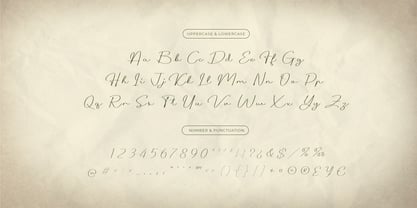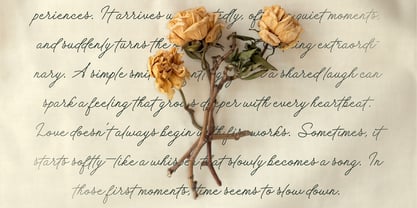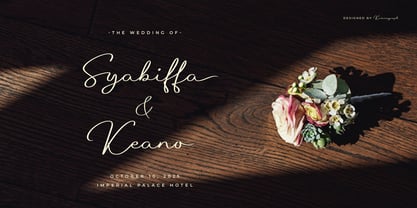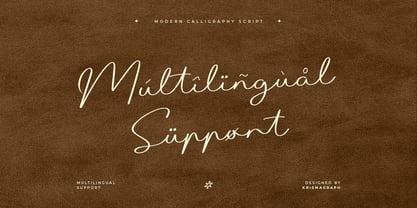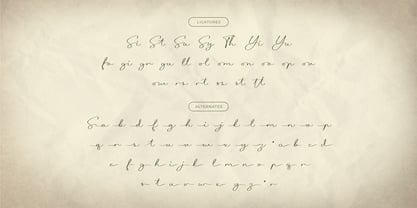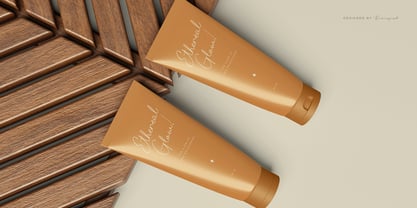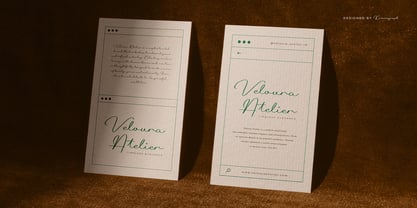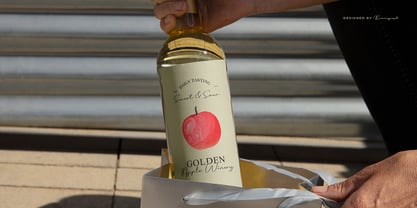
Florelie
by Krismagraph
The Florelie Font Family was designed by Ratna Krismawati and published by Krismagraph. Florelie contains 1 styles.
Introducing Florelie, a modern calligraphy script font that beautifully blends elegance and warmth in every stroke. Designed with smooth curves and a natural handwritten flow, Florelie brings a timeless charm perfect for wedding invitations, branding projects, greeting cards, and elegant logo designs. Every letter in Florelie was carefully crafted to deliver both beauty and readability. The font includes alternates and ligatures for creating unique combinations, allowing your design to feel more personal and sophisticated. With its multilingual support and graceful aesthetic, Florelie is a perfect choice for designers seeking a refined and versatile script font. What you get : - Numbers, fractions - Punctuation and symbols - Alternates - Ligatures - Multilingual support Feel free to follow, like, and share. Thank you and I hope you enjoy it!
Krismagraph is an independent typeface design studio based in Temanggung, Indonesia, founded in 2018 by type designer Ratna Krismawati. The studio creates contemporary and carefully crafted typefaces for commercial projects.Krismagraph is currently developing retail type families with their unique voice especially designing font with various style Modern and Classic Typeface. Producing high-quality typefaces with a strong character that boosts the distinctive communication purposes of a brand or project.